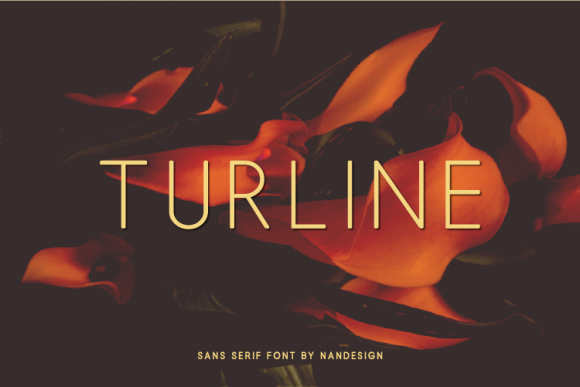
Behold Turline, the crown jewel of sans serif fonts. A masterpiece crafted by the skilled hands of Nan Design, Turline is not merely a font; it's an artistic treasure. Its elegant curves and graceful lines dance across the page, leaving a trail of beauty and sophistication in their wake.
With Turline, you're not just downloading a font; you're embracing a world of creative possibilities. Its versatility knows no bounds, effortlessly adapting to your every design whim. Whether you seek to craft captivating headings that command attention or design enchanting invitations that exude elegance, Turline is your trusted companion.
Imagine your words taking flight, adorned with the timeless beauty of Turline. Your headings will leap off the page, demanding attention with their refined boldness. Your invitations will transform into works of art, promising an unforgettable experience to your guests.
But Turline's allure extends far beyond mere words. Its stunning presence graces logos with a timeless appeal, imbuing them with a sense of professionalism and sophistication. Websites adorned with Turline radiate a modern elegance, inviting visitors to embark on a journey of discovery.
Unleash your creativity and let Turline be your muse. Its clean lines and crisp edges render it perfect for displays, headers, and save-the-date cards. Weddings and special events will be forever etched in memory, thanks to Turline's ability to capture the essence of these precious moments.
With Turline, you're not just downloading a font; you're stepping into a world of boundless creativity. Embrace its beauty, harness its versatility, and elevate your designs to new heights. Let Turline be your guide as you embark on a creative odyssey, leaving a trail of visual splendor in your wake.